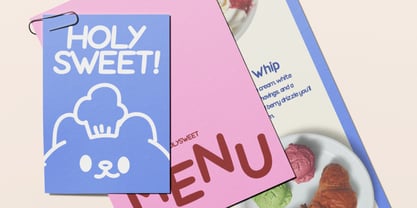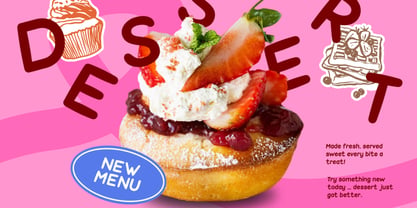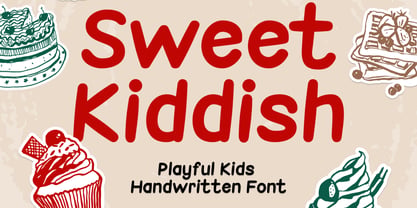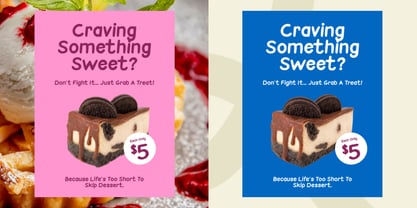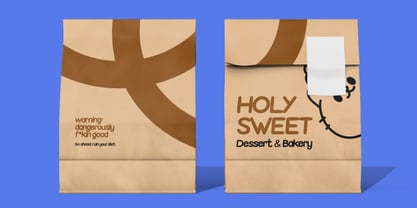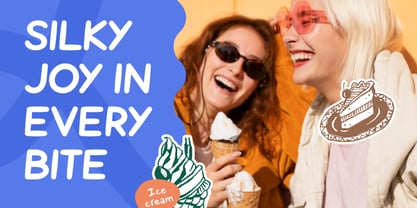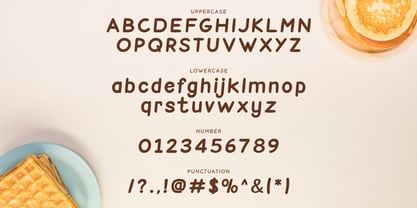
Sweet Kiddish
Sweet Kiddish is a playful handwritten font designed to capture a cheerful, childlike, and friendly personality. Inspired by kids’ handwriting, this font features rounded strokes, soft curves, and slightly irregular letterforms that feel natural and warm. It includes uppercase and lowercase letters, numbers, and essential punctuation, making it suitable for a wide range of creative projects. Sweet Kiddish is intended for display and short text use, adding charm and personality rather than formal readability. It works beautifully in colorful designs, fun layouts, and friendly visual storytelling. Sweet Kiddish is highly relevant for designs that aim to feel warm, joyful, and approachable. It is ideal for children’s branding, educational materials, storybooks, posters, invitations, packaging, and social media graphics that need a fun and friendly tone.